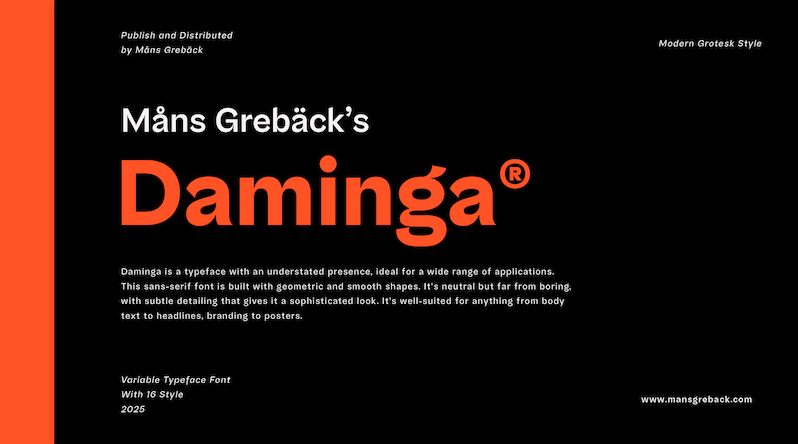
Daminga font by Mans Greback is a clean sans-serif typeface with rounded letters and rounded-inside strokes. The inside massive shrinkage suffered by the thick to ultra-thick letters gives Daminga another delightful decorative quality. Aimed in general at creating text-centered work, it is the perfect asset for pieces requiring an extra emphasis in their titles.
This free studio sans-serif font is cool to combine with imagery on minimalist posters, magazine cover design, paintings’ white captions in galleries or museums and film title shows. It further shines in digital forms and online applications like branding websites dedicated to artists of various creative fields as well as financial companies websites.